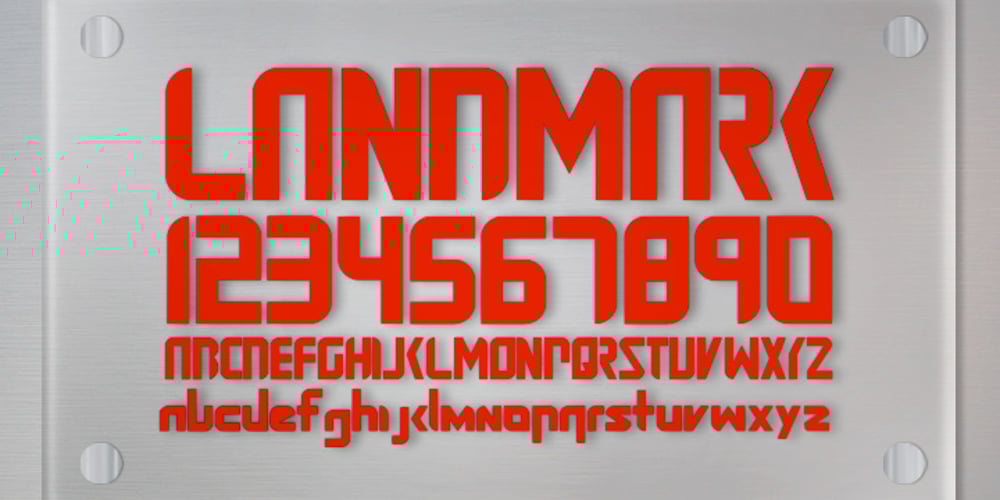
Landmark Font Family was designed by Alexandre Venancio and published by Oporto Design. Landmark contains 1 styles and family package options. Landmark is a modern bold font that mix rounded and square angles.